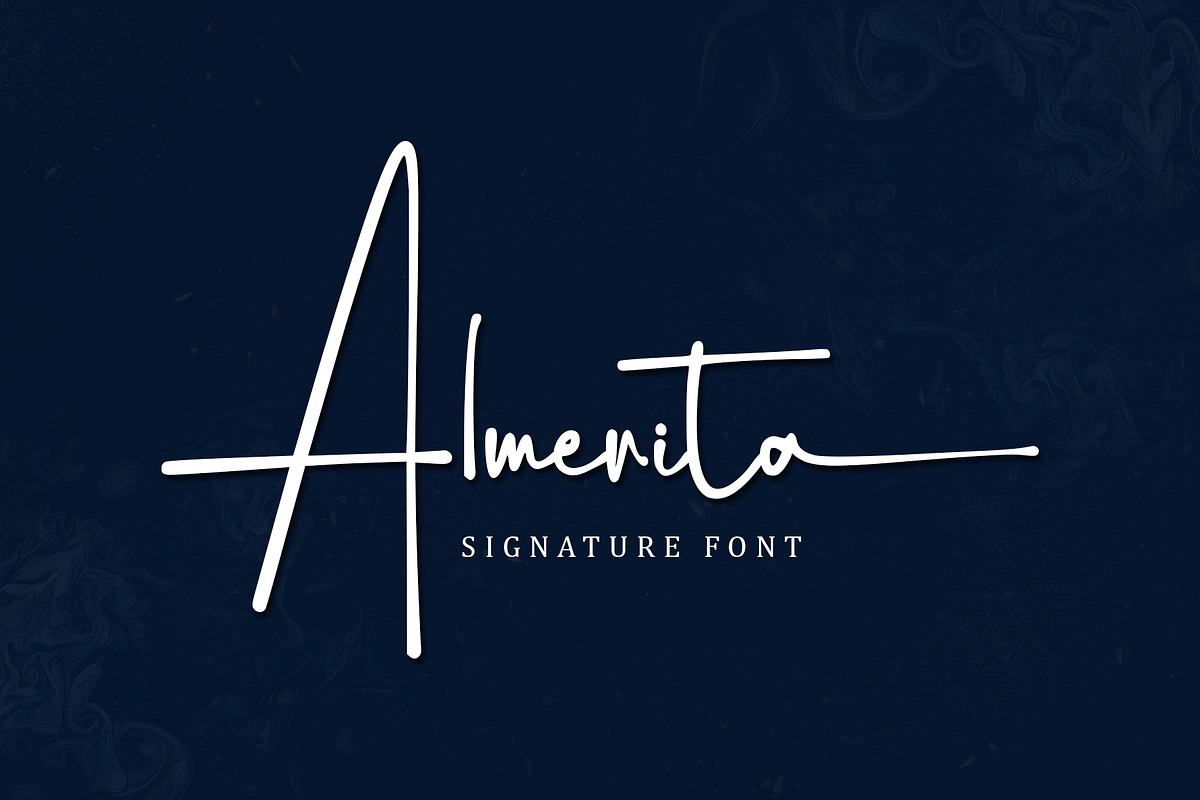
Almerita - Signature Font Free Download
To use this font commercially, you need to purchase it. You can download it free for testing purposes. Almerita - Signature Font Free Download is a beautifully crafted handwritten typeface perfect for branding, invitations, logos, and sophisticated stationery. With its elegant curves and authentic signature style, Almerita adds a personal, luxurious touch to your designs. Ideal for photographers, fashion brands, weddings, and creatives looking to express uniqueness and elegance. Its natural flow and stylish ligatures enhance readability, making every project visually striking. Experience the graceful charm and professional aesthetic by testing Almerita - Signature Font Free Download in your creative projects today.